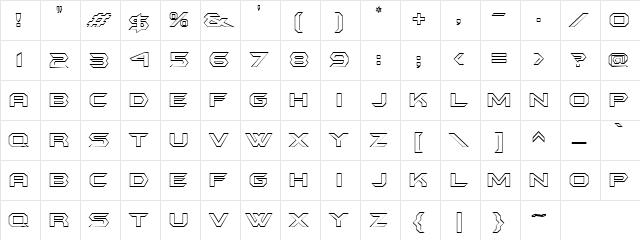
robin ol Regular
Design Context for robin ol Typeface
robin ol is a composed and adaptable typeface that performs quietly and consistently across a wide range of design contexts.